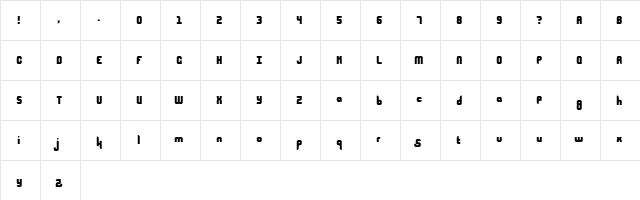
Klondike7 Regular
Design Context for Klondike7 Typeface
Klondike7 is a composed and adaptable typeface that performs quietly and consistently across a wide range of design contexts.